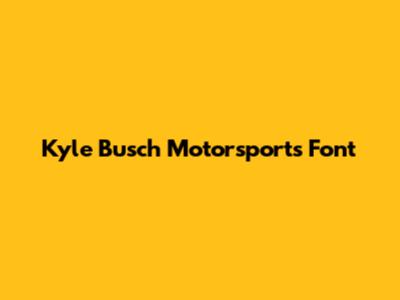
Kyle Busch Motorsports Font: History, Uses & Similar Styles
Delving into the world of Kyle Busch Motorsports (KBM), it's impossible not to notice the distinctive fonts that have become synonymous with the brand. Fonts, guys, are more than just letters; they're a crucial element of visual identity, especially in motorsports where branding is everything. The KBM font isn't just about looking cool; it's about projecting a certain image, a sense of speed, and a connection to the legacy of Kyle Busch. Think about it – every logo, every number on the car, every piece of merchandise uses a specific font to communicate the essence of the team. This font helps fans instantly recognize and connect with KBM, whether they're watching a race, buying merchandise, or following the team on social media. The choice of font reflects the team's values, its history, and its aspirations. It’s a silent but powerful way to reinforce the brand identity and create a lasting impression. Specifically, the font needs to be legible at high speeds, look good on various media, and align with the overall brand aesthetic. When selecting a font, KBM considers factors such as readability, visual appeal, and how well it represents the team’s image. The font is carefully chosen to be both functional and visually striking, ensuring that it stands out in a crowded field of competitors. Moreover, the KBM font contributes to the team’s overall marketing strategy by reinforcing brand recognition and enhancing the visual appeal of promotional materials. It’s a subtle but effective way to create a cohesive and memorable brand experience for fans and sponsors alike. In the competitive world of motorsports, every detail matters, and the choice of font is no exception. It's a small element that plays a significant role in shaping the team's identity and resonating with its audience. Furthermore, the consistent use of a specific font across all KBM materials helps to build brand loyalty and recognition among fans. This consistency creates a sense of familiarity and trust, making it easier for fans to connect with the team and its values.
History and Evolution
The history of Kyle Busch Motorsports (KBM) and its font choices is a fascinating journey through branding and visual identity. When KBM was first established, the selection of a font was a deliberate decision aimed at capturing the essence of the team's mission and values. The initial font choices reflected a desire to project speed, innovation, and a winning spirit. Over the years, as KBM evolved, so too did its branding, with subtle but significant changes made to the fonts used to represent the team. These changes were often driven by a need to stay current with design trends, enhance readability, or better align with the team's evolving image. The evolution of the KBM font also reflects the changing landscape of motorsports marketing. As the sport has become more sophisticated, so too has the approach to branding, with teams paying closer attention to every detail of their visual identity. The KBM font has adapted to these changes, becoming more refined and impactful over time. It's important to note that the font is not just about aesthetics; it also serves a practical purpose. In the fast-paced world of motorsports, where split-second decisions can make the difference between winning and losing, the font must be easily legible at high speeds. This requirement has influenced the design of the KBM font, ensuring that it is both visually appealing and functionally effective. Moreover, the evolution of the KBM font has been influenced by feedback from fans, sponsors, and other stakeholders. The team has listened to this feedback and made adjustments to the font to better resonate with its audience. This collaborative approach has helped to ensure that the KBM font remains relevant and impactful. The story of the KBM font is a testament to the importance of branding in motorsports. It's a reminder that every detail matters, from the design of the car to the font used in the team's logo. By paying attention to these details, KBM has created a strong and recognizable brand that resonates with fans and sponsors alike.
Key Characteristics of the KBM Font
The key characteristics of the Kyle Busch Motorsports (KBM) font are what make it instantly recognizable and uniquely suited to representing the team's brand. First and foremost, readability is paramount. In the high-speed world of motorsports, the font must be clear and legible even when viewed quickly or from a distance. This means that the letters need to be well-defined and easily distinguishable from one another. The font's visual appeal is also crucial. It needs to be modern, dynamic, and reflect the team's competitive spirit. The font should convey a sense of speed and excitement, capturing the thrill of racing. At the same time, it needs to be professional and sophisticated, reflecting the team's commitment to excellence. Another important characteristic of the KBM font is its versatility. It needs to work well in a variety of applications, from the team's logo to the numbers on the car to the text on merchandise and promotional materials. This means that the font needs to be scalable and adaptable to different sizes and formats. The font's overall design aesthetic is also a key consideration. It needs to align with the team's brand identity and convey the desired message. The font should be consistent with the team's colors, logo, and other visual elements, creating a cohesive and recognizable brand image. Furthermore, the KBM font needs to be unique and distinctive. It should stand out from the crowd and help the team differentiate itself from its competitors. This means that the font needs to have a unique personality and character that sets it apart. The font's kerning and spacing are also important details that contribute to its overall appearance and readability. The letters need to be spaced properly to ensure that they are easy to read and visually appealing. Additionally, the KBM font needs to be memorable. It should be a font that fans and sponsors can easily recall and associate with the team. This helps to build brand recognition and loyalty. In summary, the key characteristics of the KBM font are readability, visual appeal, versatility, design aesthetic, uniqueness, kerning and spacing, and memorability. These characteristics combine to create a font that is perfectly suited to representing the Kyle Busch Motorsports brand.
Uses in Motorsports Branding
The uses of fonts in motorsports branding, particularly the Kyle Busch Motorsports (KBM) font, extend far beyond just looking good. They are integral to creating a cohesive brand identity and enhancing recognition among fans. In motorsports, where speed and visibility are key, the font used on the car number is crucial. It needs to be easily readable at high speeds and from a distance, ensuring that fans and officials can quickly identify the car. The KBM font is specifically designed to meet these requirements, with bold lines and clear letterforms that stand out on the track. The team logo is another prominent application of the KBM font. The logo serves as the primary visual representation of the team, and the font used in the logo helps to convey the team's personality and values. The KBM font is chosen to reflect the team's competitive spirit and commitment to excellence. Merchandise also heavily relies on the KBM font. From t-shirts to hats to collectibles, the font is used to reinforce brand recognition and create a sense of connection between fans and the team. The consistent use of the font across all merchandise items helps to build a strong and unified brand image. Sponsorship signage is another important area where the KBM font is used. Sponsors play a vital role in motorsports, and their logos are prominently displayed on the car, team uniforms, and other promotional materials. The KBM font is often incorporated into the design of these sponsorship signs, helping to create a cohesive and visually appealing presentation. Social media and online presence also benefit from the consistent use of the KBM font. The font is used in graphics, videos, and other online content to reinforce brand recognition and create a consistent visual identity across all platforms. This helps to strengthen the team's online presence and engage with fans in a meaningful way. Pit crew uniforms are yet another area where the KBM font can be found. The uniforms worn by the pit crew are an important part of the team's overall image, and the font used on these uniforms helps to create a professional and unified look. The KBM font is often incorporated into the design of the pit crew uniforms, reinforcing brand recognition and creating a sense of team pride. In conclusion, the uses of fonts in motorsports branding are diverse and far-reaching. The KBM font plays a critical role in creating a cohesive brand identity, enhancing recognition among fans, and reinforcing the team's values. From the car number to the team logo to merchandise and sponsorship signage, the KBM font is an essential element of the team's overall marketing strategy.
Similar Font Styles
Exploring similar font styles to the Kyle Busch Motorsports (KBM) font can be beneficial for designers and marketers looking to capture a similar aesthetic in their own projects. While the exact KBM font may be proprietary or difficult to obtain, there are several fonts that share similar characteristics and can be used as alternatives. One popular category of fonts that resembles the KBM font is the bold sans-serif family. These fonts typically feature clean lines, strong letterforms, and a modern appearance. They are often used in sports branding and other applications where readability and impact are important. Examples of bold sans-serif fonts include Arial Black, Helvetica Bold, and Impact. Another similar font style is the condensed sans-serif family. These fonts are characterized by their narrow letterforms, which allow for more text to be displayed in a limited space. Condensed sans-serif fonts are often used in headlines, signage, and other applications where space is at a premium. Examples of condensed sans-serif fonts include Bebas Neue, DIN Condensed, and Akzidenz-Grotesk Condensed. The geometric sans-serif family is another good option. These fonts are based on simple geometric shapes and often have a minimalist and modern aesthetic. Geometric sans-serif fonts are popular in branding, web design, and other applications where a clean and contemporary look is desired. Examples of geometric sans-serif fonts include Futura, Avant Garde, and Gotham. In addition to these specific font families, it's also worth considering fonts that are specifically designed for sports branding. These fonts often have features that are optimized for use in high-speed environments, such as bold letterforms, clear spacing, and good readability. Examples of sports-specific fonts include Victory Script, Racer, and Varsity. When choosing a font that is similar to the KBM font, it's important to consider the overall message and aesthetic that you want to convey. Think about the font's readability, visual appeal, and versatility, and how well it aligns with your brand identity. It's also a good idea to experiment with different fonts and see which ones work best in your specific application. Ultimately, the best font will be one that is both visually appealing and effective at communicating your message. Remember to check the licensing terms of any font that you use, to ensure that you are complying with the font's usage restrictions. Some fonts are free for personal use but require a commercial license for business applications. By exploring similar font styles and carefully considering your options, you can find a font that captures the essence of the KBM font and helps you create a strong and recognizable brand.
Conclusion
In conclusion, understanding the Kyle Busch Motorsports (KBM) font and its applications provides valuable insights into the world of motorsports branding. The font is more than just a set of letters; it's a crucial element of the team's visual identity, conveying its values, history, and aspirations. From the track to merchandise to online presence, the KBM font reinforces brand recognition and creates a cohesive image for fans and sponsors alike. The history and evolution of the KBM font reflect the changing landscape of motorsports marketing and the importance of adapting to design trends and audience preferences. The key characteristics of the font, such as readability, visual appeal, and versatility, are carefully considered to ensure that it is both functional and visually striking. Exploring similar font styles can be helpful for designers and marketers looking to capture a similar aesthetic in their own projects. While the exact KBM font may be difficult to obtain, there are several fonts that share similar characteristics and can be used as alternatives. By understanding the principles behind the KBM font and exploring similar options, you can create a strong and recognizable brand for your own team or organization. Whether you're designing a race car, creating merchandise, or building an online presence, the right font can make a big difference in how your brand is perceived. So, take the time to research and experiment with different fonts until you find one that perfectly captures the essence of your brand and resonates with your audience. Remember, the font is just one piece of the puzzle, but it's an important piece that can help you stand out from the competition and achieve your goals. By paying attention to the details and making informed decisions, you can create a brand that is both visually appealing and strategically effective. The KBM font serves as a great example of how a well-chosen font can contribute to a successful motorsports brand.